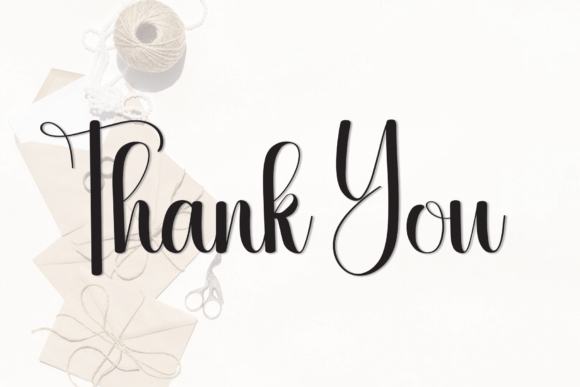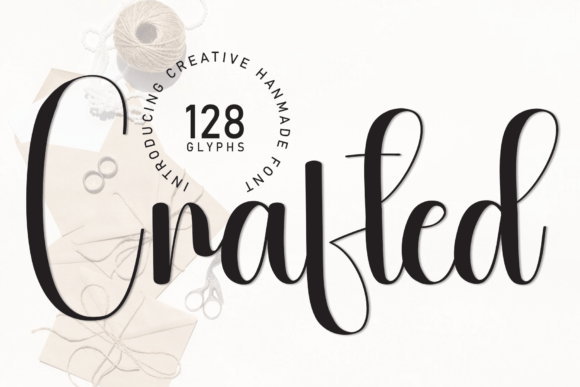
Crafted Font: Elevate Your Designs with a Stylish and Bold Handwritten Touch
In the world of typography, fonts play a crucial role in conveying the tone and personality of a design. For designers and crafters looking to add a touch of nostalgia and sophistication to their work, the Crafted Font is an excellent choice. This gorgeous and bold handwritten font is specifically crafted to give your headlines and logotype projects a stylish and confident look.
The Characteristics of Crafted Font
Crafted Font reads as strong, confident, and dynamic, making it perfect for designers who want to make a statement. Its bold and handwritten style adds a touch of warmth and personality to any design, setting it apart from more traditional and generic fonts. The font’s unique character is reminiscent of classic handwritten typography, evoking a sense of nostalgia and timelessness.
What Makes Crafted Font Stand Out
So, what makes Crafted Font stand out from other fonts in the market? Here are a few key features that make it an excellent choice for designers and crafters:
• Bold and confident: Crafted Font is designed to make a statement. Its bold and confident style is perfect for headlines, logotypes, and other design projects where you want to grab attention.
• Handwritten style: The font’s handwritten style adds a touch of warmth and personality to any design. It’s perfect for designers who want to create a more human and approachable look.
• Nostalgic character: Crafted Font has a unique nostalgic character that evokes a sense of timelessness. It’s perfect for designers who want to create a vintage or retro look.
• Dynamic and versatile: The font is highly versatile and can be used for a wide range of design projects, from branding and advertising to packaging and digital design.
How to Use Crafted Font in Your Designs
Crafted Font is an excellent choice for a wide range of design projects. Here are a few ideas to get you started:
• Headlines and titles: Use Crafted Font to create bold and eye-catching headlines and titles that grab attention.
• Logotypes and branding: The font is perfect for creating unique and memorable logotypes and branding elements that reflect your brand’s personality.
• Packaging design: Add a touch of nostalgia and sophistication to your packaging designs with Crafted Font.
• Digital design: Use the font to create engaging and interactive digital designs, such as website headers, social media graphics, and more.
Tips for Getting the Most Out of Crafted Font
Here are a few tips to help you get the most out of Crafted Font:
• Experiment with different sizes and colors: Don’t be afraid to experiment with different sizes and colors to find the perfect combination for your design.
• Pair it with other fonts: Crafted Font pairs well with other fonts, so don’t be afraid to experiment with different combinations to create a unique look.
• Use it consistently: Use Crafted Font consistently throughout your design to create a cohesive and professional look.
In conclusion, Crafted Font is a gorgeous and bold handwritten font that’s perfect for designers and crafters looking to add a touch of nostalgia and sophistication to their work. Its strong, confident, and dynamic style makes it perfect for headlines, logotypes, and other design projects where you want to make a statement. With its unique character and versatility, Crafted Font is an excellent choice for any designer looking to elevate their designs.